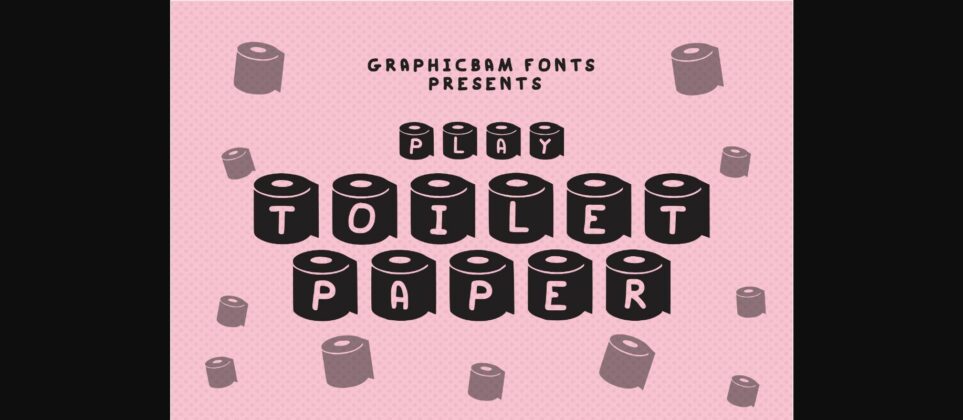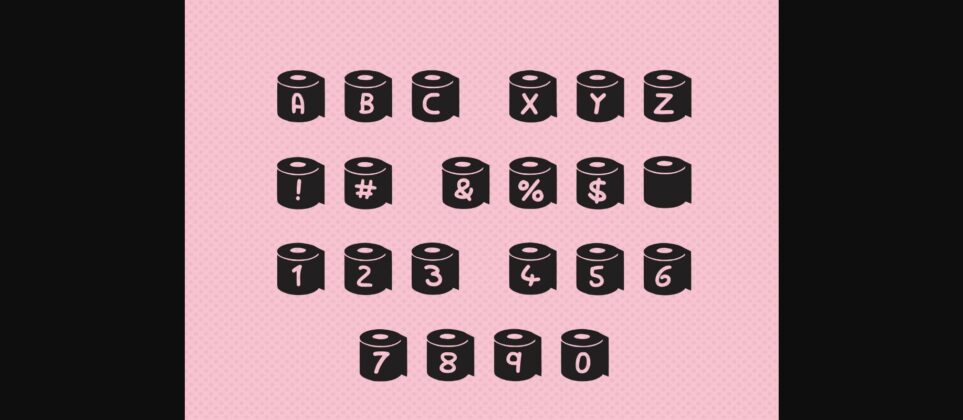
About Play Toilet Font
Play Toilet Paper is a lovely decorative font. It will look great on the packaging of toilet paper, on school-related designs, educational campaigns, funny designs, or other bold and creative ideas.